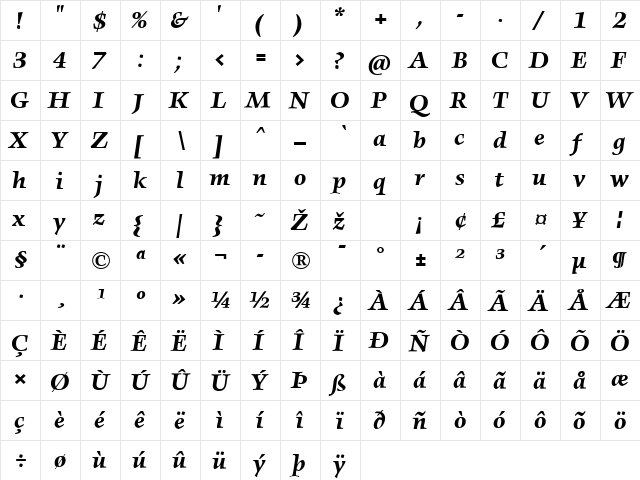
AngkoonTF-BoldItalic Regular
| Foundry | Xavier Dupre, published by FontShop International for the FontFont Library |
| Designer | Xavier Dupre |
Design Context for AngkoonTF-BoldItalic Typeface
AngkoonTF-BoldItalic offers clean, dependable letterforms without strong stylistic allegiance, making it a practical choice for designers who need flexibility. Its italic angle brings a sense of urgency and motion to the letterforms. Its bold stroke weight gives it real presence on the page.